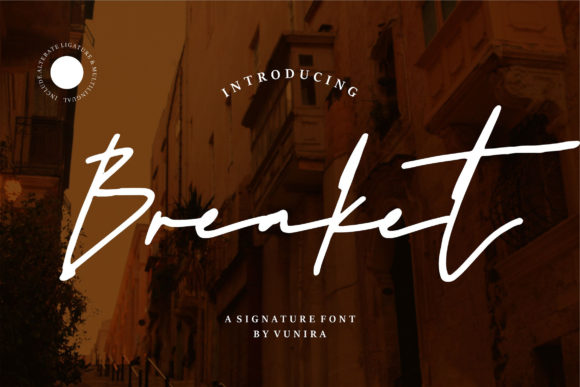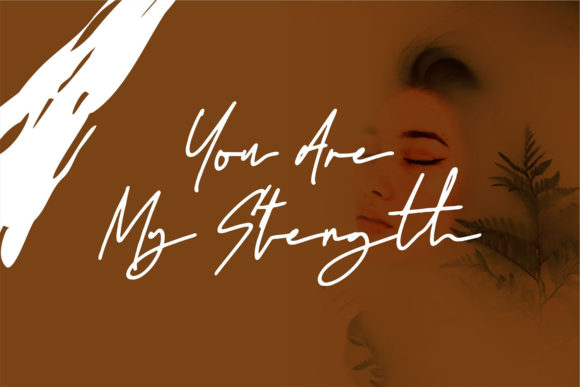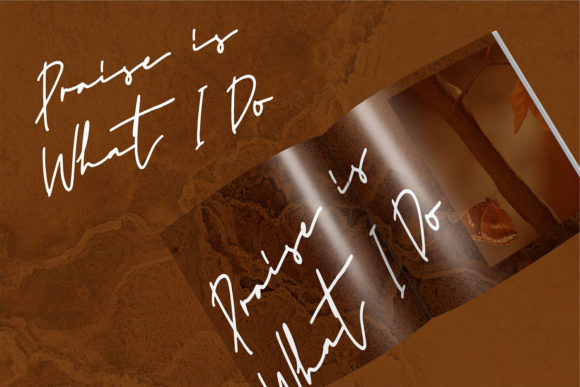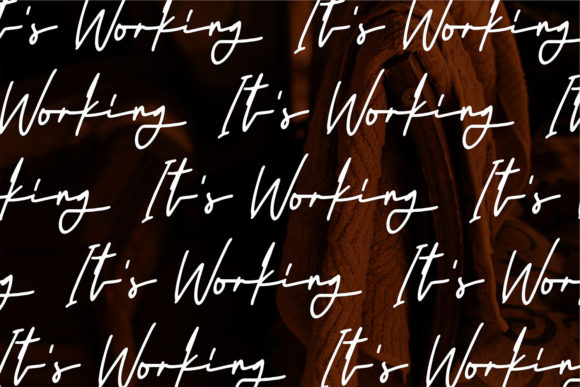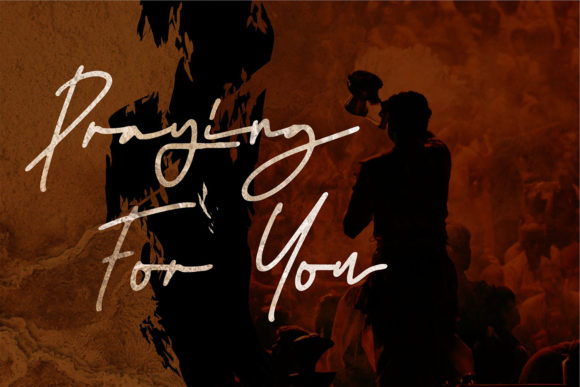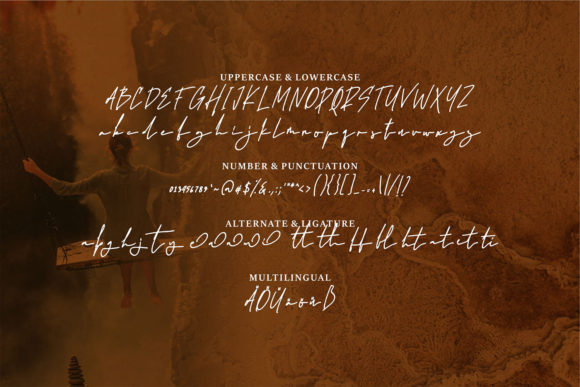
Breaket Font
About Breaket Font
Breaket is a cool and stylish handwritten font that brings an elegant and classy touch to your designs. With its unique and refreshing look, it stands out and adds a touch of sophistication to any project.
The smooth and flowing letterforms of Breaket create a sense of elegance and grace. The strokes are carefully crafted to create a harmonious and balanced appearance. This font is perfect for those who want to add a touch of refined beauty to their designs.
Breaket is versatile and can be used in various design contexts. It works well for branding, logo design, headlines, quotes, invitations, and much more. Whether you’re creating a sleek and modern design or a romantic and whimsical piece, Breaket can adapt to suit your needs.
The attention to detail in Breaket is evident in its refined and polished style. Every letter has a unique touch that adds to the overall aesthetic appeal. It brings a sense of professionalism and sophistication to your designs, making them stand out and leave a lasting impression.
Breaket is particularly well-suited for projects that require a beautiful and refreshing look. Its stylish and cool vibe makes it a perfect choice for fashion branding, lifestyle magazines, luxury products, and high-end designs. It adds a touch of sophistication and exclusivity to your creations.
With Breaket, you can create visually stunning designs that captivate and engage your audience. Its elegant and classy appearance will draw attention and leave a lasting impression. Whether you’re designing for print or digital media, Breaket will elevate your projects and make them truly remarkable.
Add Breaket to your font collection and unleash its potential to bring elegance and class to your designs. Its cool and stylish nature will breathe new life into your creative endeavors, making them visually striking and unforgettable.